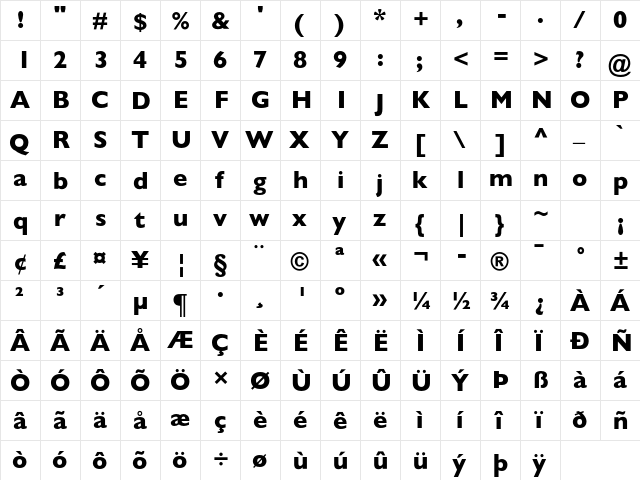
Gill Sans MT Std Heavy
Design Context for Gill Sans MT Std Typeface
Gill Sans MT Std offers clean, dependable letterforms without strong stylistic allegiance, making it a practical choice for designers who need flexibility.